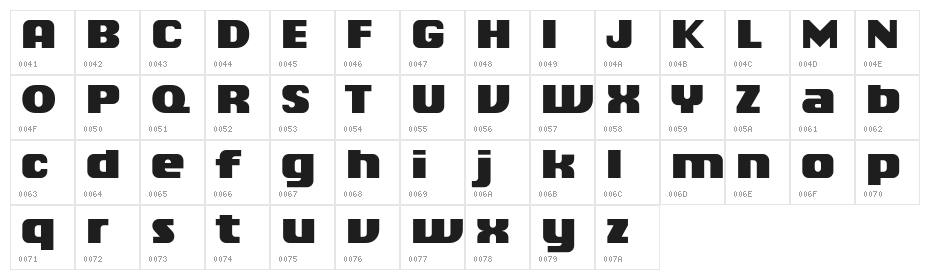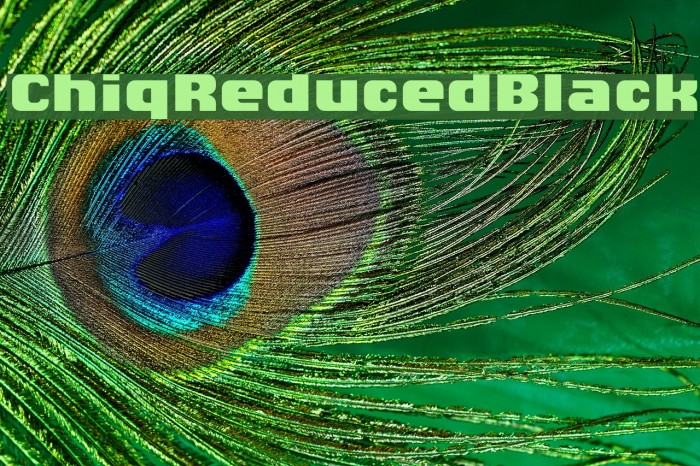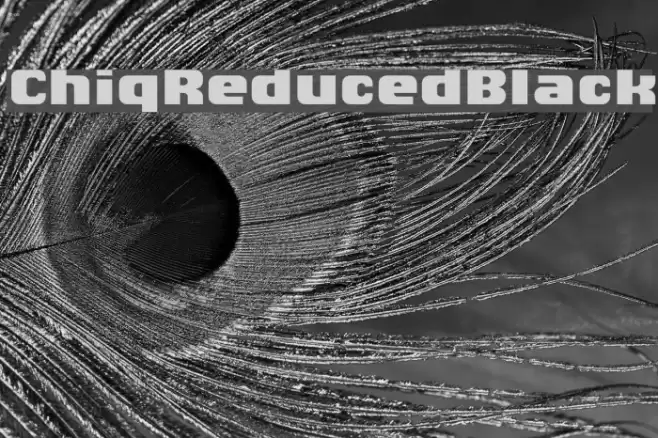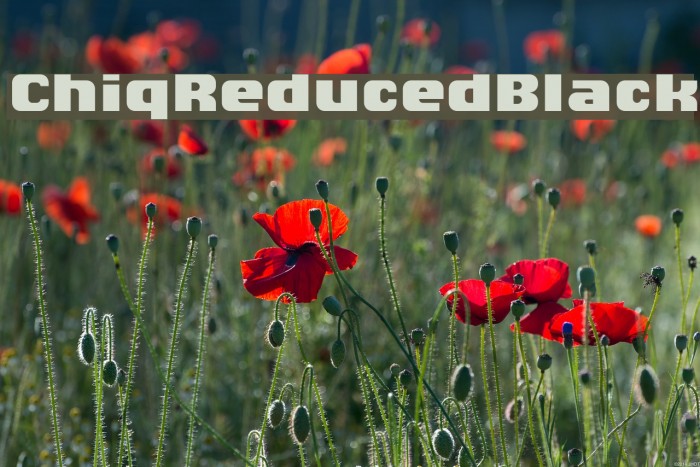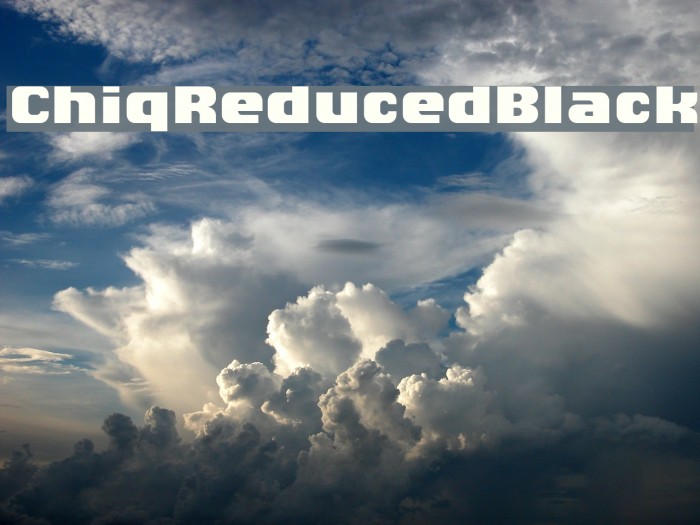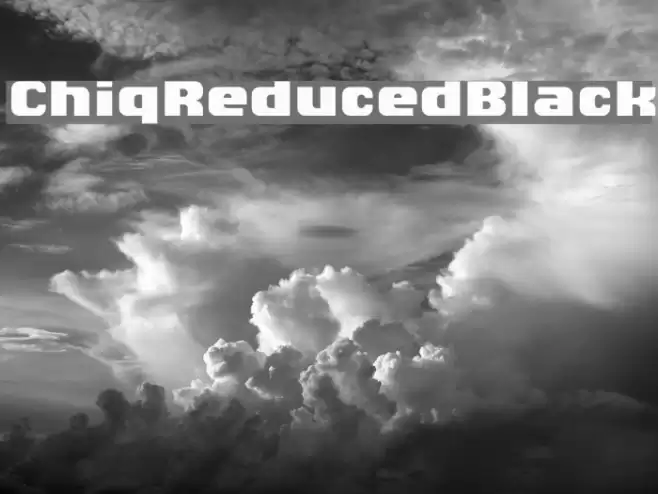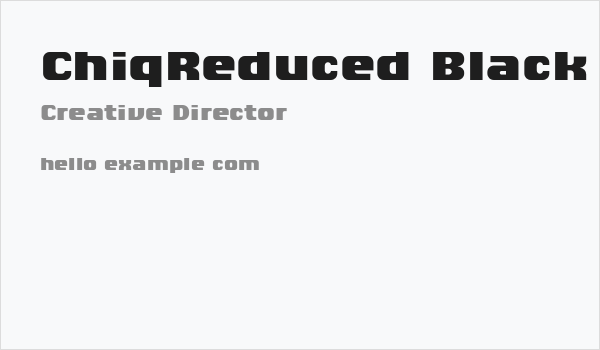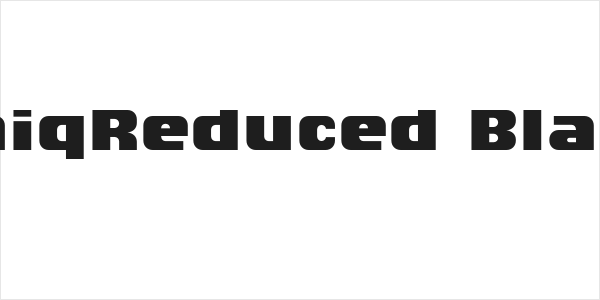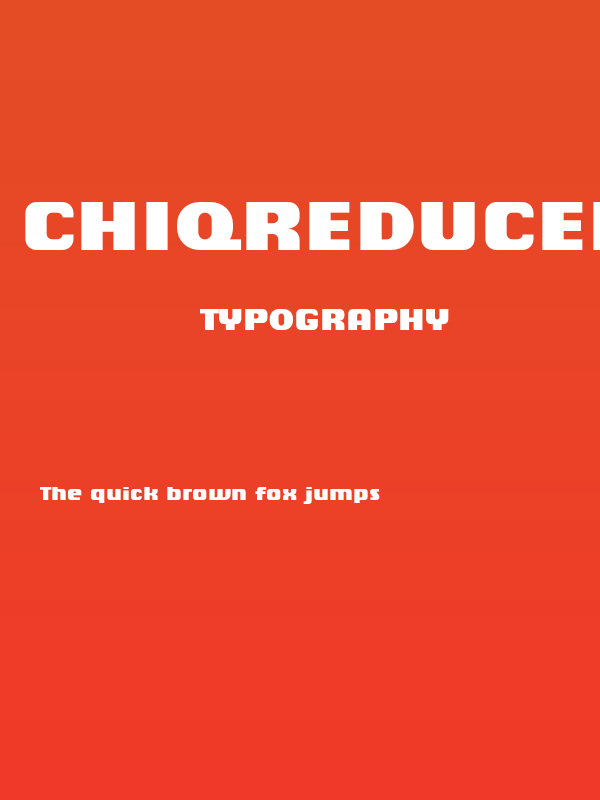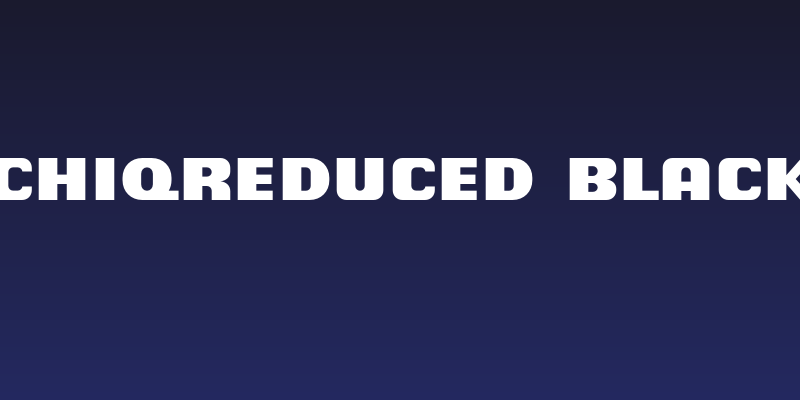
ChiqReduced-Black Font
ChiqReduced-Black Description
This font features a bold and robust design with a strong presence. The characters are uniformly thick, giving it a powerful and modern look. The uppercase and lowercase letters maintain a consistent style, with rounded edges that soften the overall appearance. The numbers and special characters follow the same design principles, ensuring a cohesive look across all glyphs. The font's boldness makes it highly legible and impactful, suitable for making statements in various design contexts.
| Proposed Projects | Ideal for branding, headlines, posters, and any design needing a bold statement. |